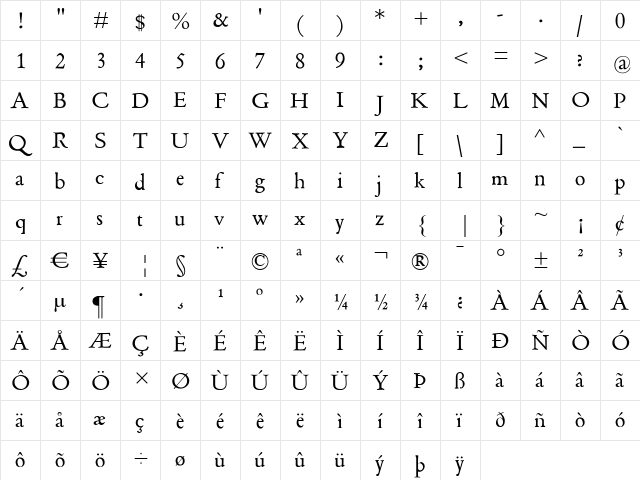
GriffosFont Regular Font Preview
GriffosFont Regular
Design Context for GriffosFont Typeface
GriffosFont is a composed and adaptable typeface that performs quietly and consistently across a wide range of design contexts.